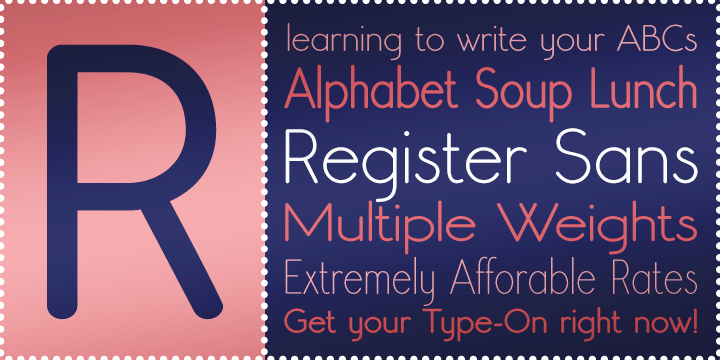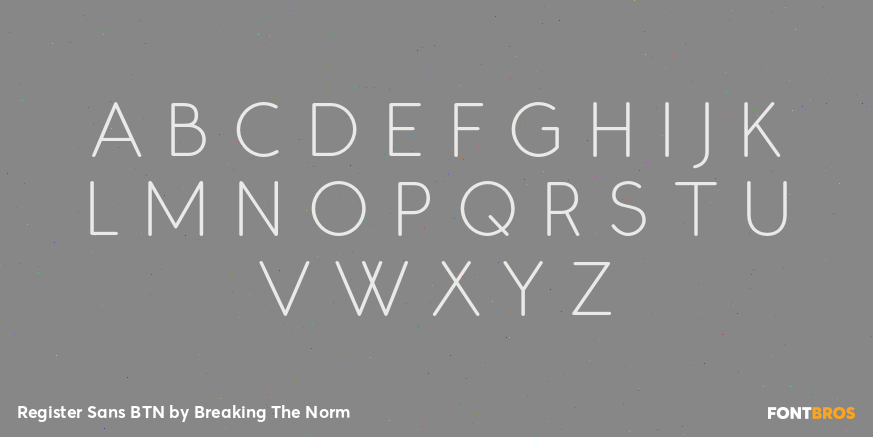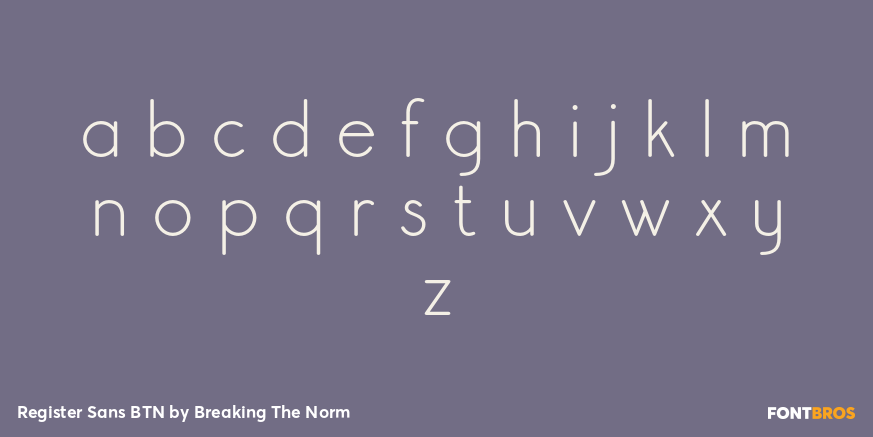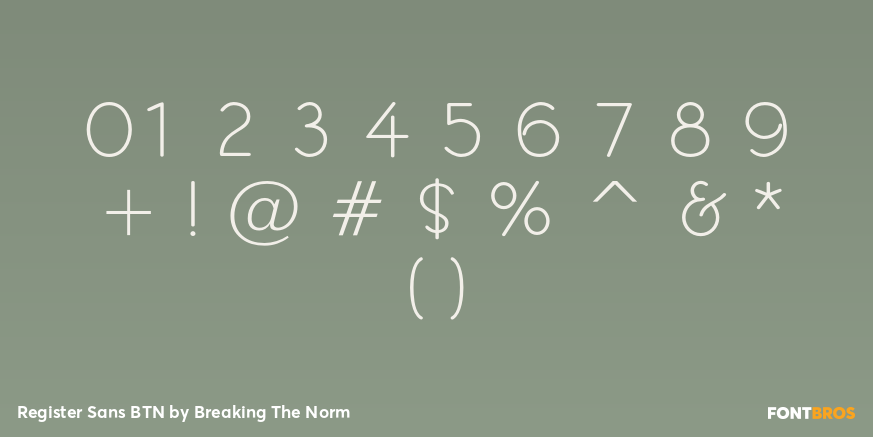
Register Sans BTN
Font Family by Breaking The Norm
Register Sans BTN is a friendly, highly readable sans serif family inspired by the draft-letter handwriting models found in vintage Speedball lettering booklets. With a clean construction that also recalls classroom lettering guides and hand-drawn sign alphabets, it brings together clarity, warmth, and practical versatility. The family works well for editorial design, branding, packaging, signage, advertising, educational materials, and display settings that benefit from an approachable, text-friendly voice. With a broad range of weights, obliques, and width options from condensed to wide, Register Sans BTN offers flexible typographic range while maintaining its crisp, familiar character.